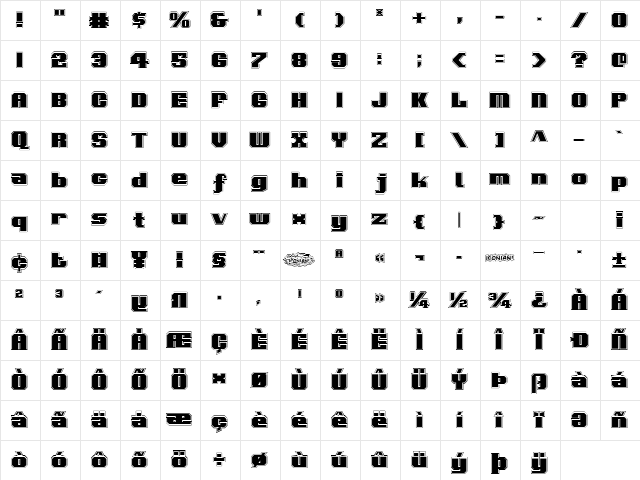
Voortrekker Pro Regular
Design Context for Voortrekker Pro
Voortrekker Pro is a composed and adaptable typeface that performs quietly and consistently across a wide range of design contexts.
Pro Tip: Use Voortrekker Pro in both headline and body roles to test its range before committing to a single application.